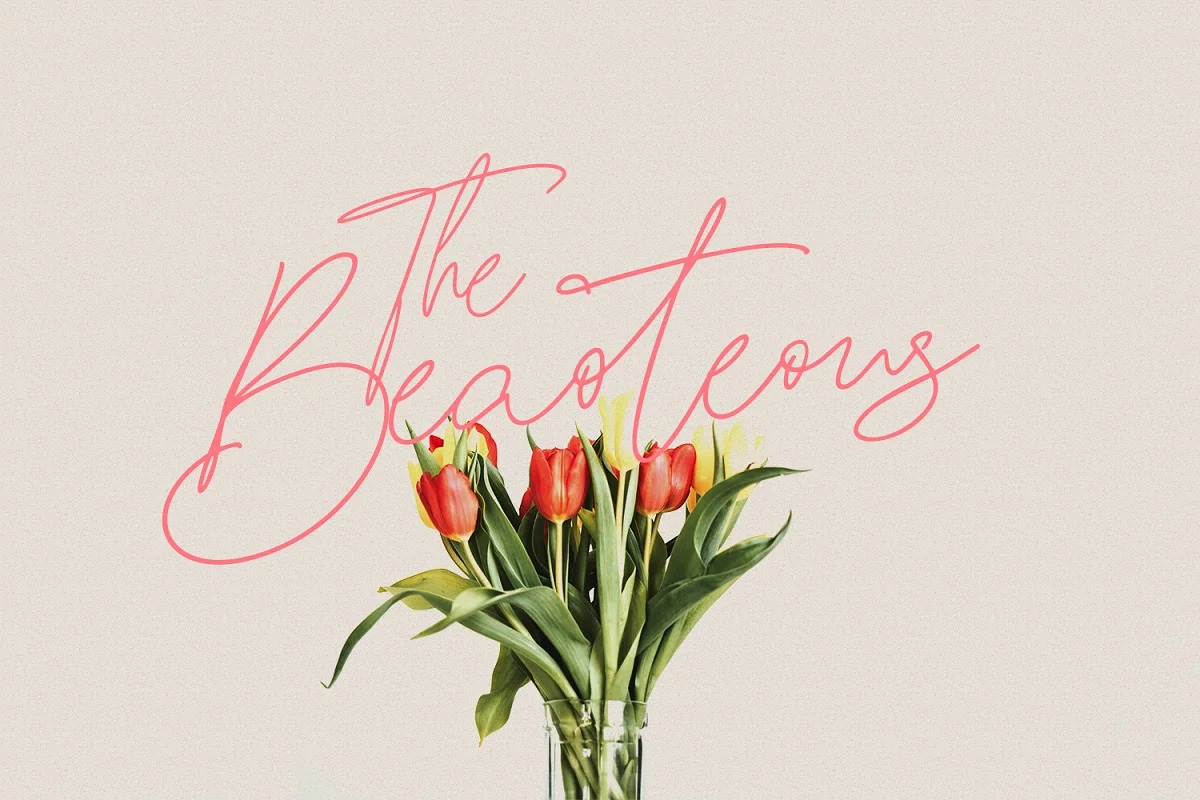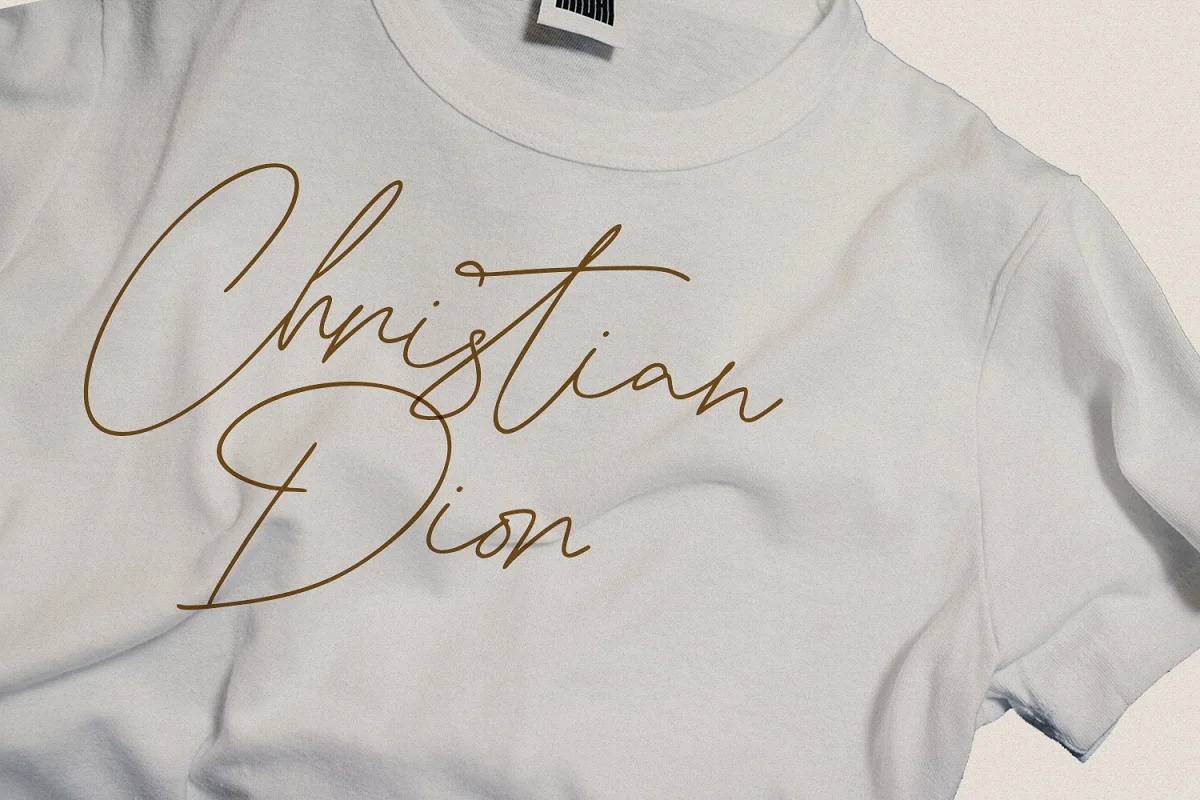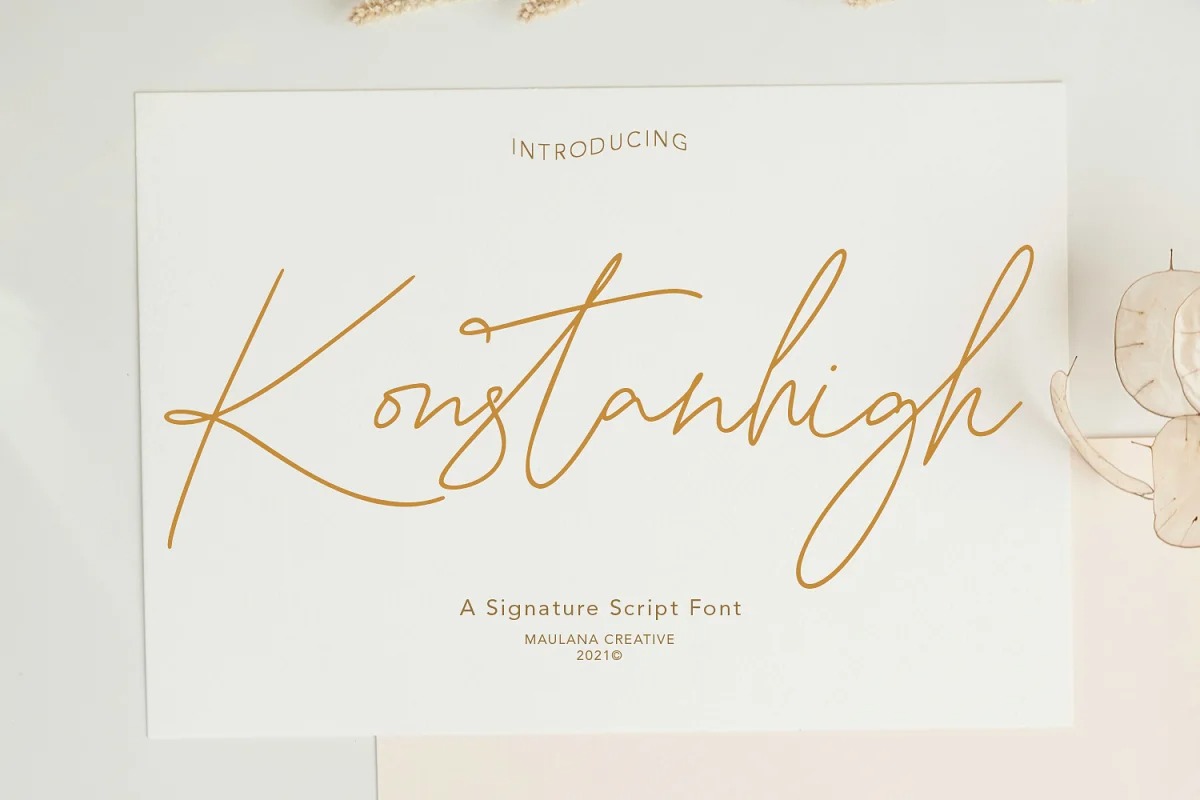
Konstanhigh Font
Konstanhigh Handwritten Font
It’s a new fresh handmade script typeface created by Maulana Creative with thin mono-line stroke, super slanted and fun character. It has Opentype features ligatures of character, To give you an extra creative work. Konstanhigh font support multilingual more than 100+ language. This font is good for logo design, Social media, Movie Titles, Books Titles, a short text even a long text letter and good for your secondary text font with sans or serif. Make a stunning work with Konstanhigh font.